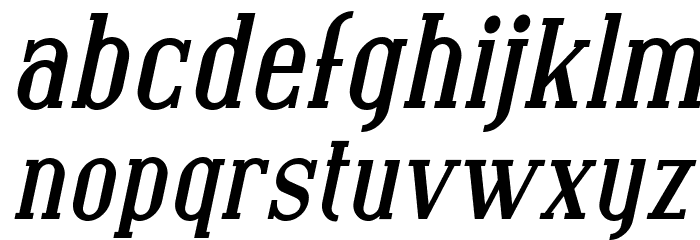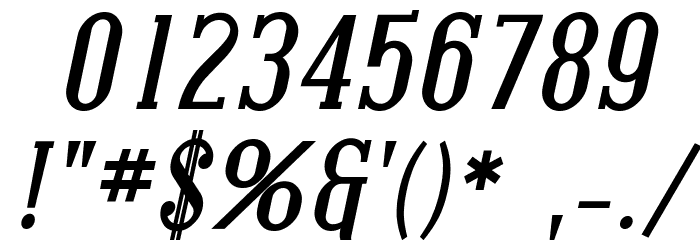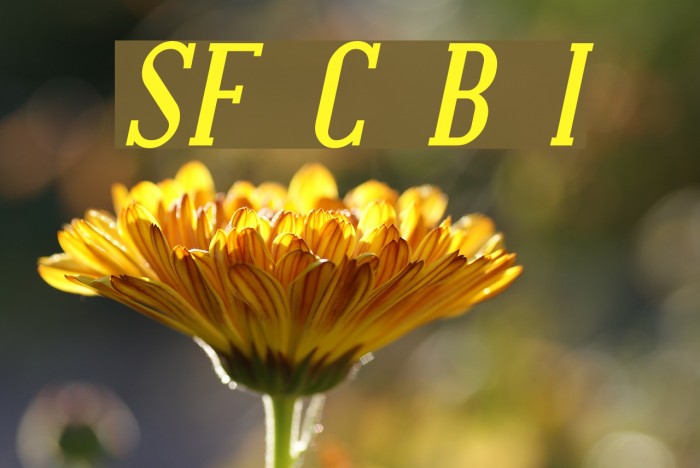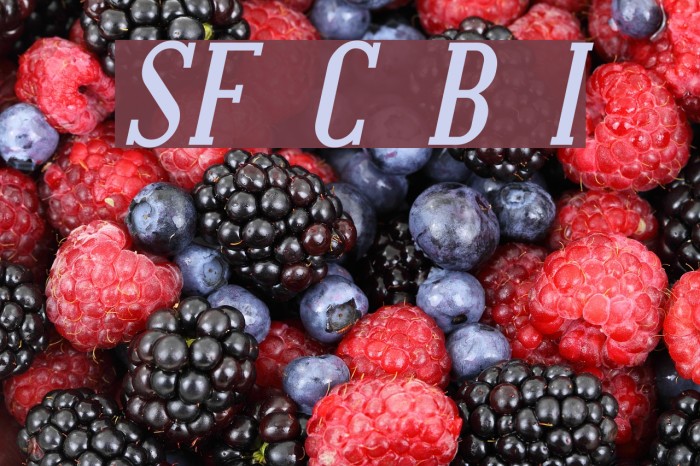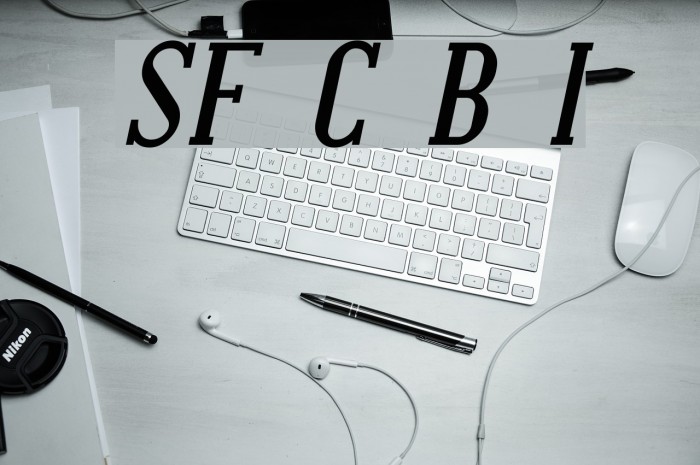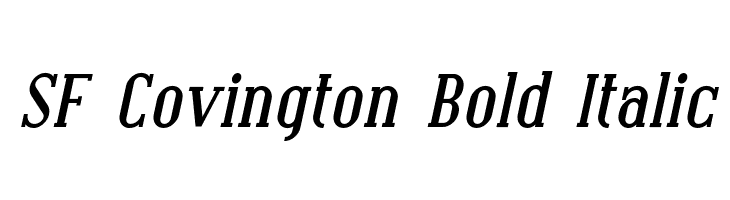
SF Covington Bold Italic Font
This font features a bold and italic style, characterized by its strong, slanted letterforms that convey a sense of movement and dynamism. The strokes are thick and consistent, providing a robust appearance suitable for impactful text. The uppercase letters are tall and commanding, while the lowercase letters maintain a balanced proportion, ensuring readability. The numerals are clear and distinct, matching the boldness of the alphabet. Special characters are well-integrated, maintaining the overall aesthetic. This font is ideal for creating a strong visual presence in any design project.
A bold and italic font with strong, slanted letterforms for impactful design.